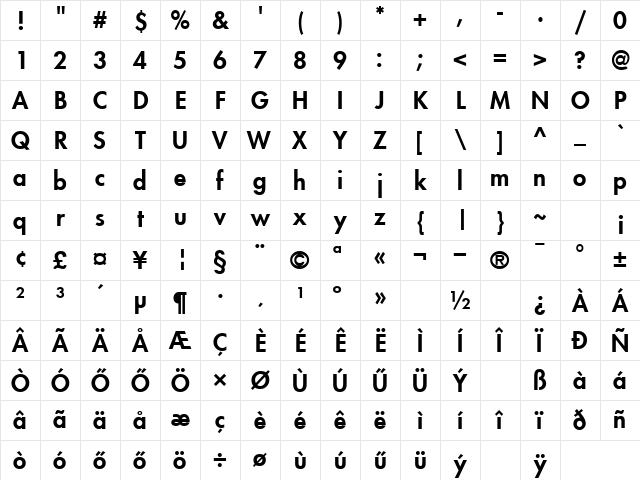
Hu_Recorder Regular Free Font
Hu_Recorder Regular
Design Context for Hu_Recorder
Hu_Recorder is a composed and adaptable typeface that performs quietly and consistently across a wide range of design contexts.